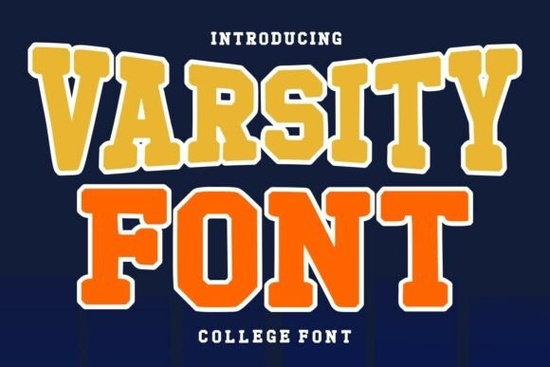
The Varsity Font is a standout choice for anyone looking to add a strong, athletic vibe to their designs. Whether you're working on a school project, creating merchandise, or designing for sports teams, this font brings a classic, bold feel that's both eye-catching and easy to read. Its clean slab shapes and vintage-inspired style make it perfect for logos, posters, and branding materials that need a little extra punch.
Designed with a focus on readability and impact, the Varsity Font works well in both print and digital formats. It’s ideal for headlines, banners, and any project that needs a confident, energetic look. The font’s versatility means it can be used across a range of creative fields, from graphic design to apparel and marketing campaigns. If you’re searching for a typeface that combines tradition with modern appeal, this could be the one for you.
What Makes Varsity Font Stand Out?
The Varsity Font excels in its ability to convey a sense of strength and nostalgia. Its design draws inspiration from traditional university lettering and sports jerseys, giving it a timeless quality that feels familiar yet fresh. This makes it especially useful for projects with a retro or collegiate theme.
One of the key features of this font is its clean structure. Despite its bold appearance, it remains highly readable, even at smaller sizes. This balance between style and functionality is what makes it a favorite among designers and small business owners alike.
Best Uses for Varsity Font
This font is particularly well-suited for projects that require a strong, memorable presence. For example, it works great on team uniforms, event posters, and promotional materials for sports events. Its boldness helps it stand out without overwhelming the viewer.
It’s also a popular choice for educational institutions and student projects. Teachers and students can use it to create engaging presentations, classroom signs, or school-related graphics. Its vintage flair adds a nostalgic touch that can enhance the overall design.
For creators in the print-on-demand space, the Varsity Font offers a reliable option for t-shirts, mugs, and other custom products. Its clear letterforms ensure that it looks sharp on any surface, whether it's printed in large or small scale.
Whether you're a designer, a hobbyist, or a small business owner, the Varsity Font is a valuable addition to your toolkit. Its combination of strength, readability, and vintage charm makes it a go-to choice for a variety of projects. Take some time to experiment with it and see how it can elevate your creative work.